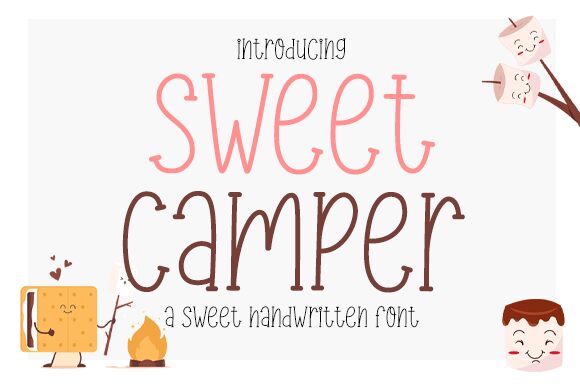
Sweet Camper
Looking for a font that exudes a whimsical, carefree vibe? Look no further than Sweet Camper. Designed by Graphix Line Studio, this display handwritten font features a light weight and condensed width that's perfect for adding a touch of playfulness to any project. Whether you're designing invitations for a child's birthday party or creating graphics for an outdoor adventure brand, Sweet Camper is the ideal choice. With its charmingly imperfect lettering and unique character set, this font is sure to add personality and charm to any design project.